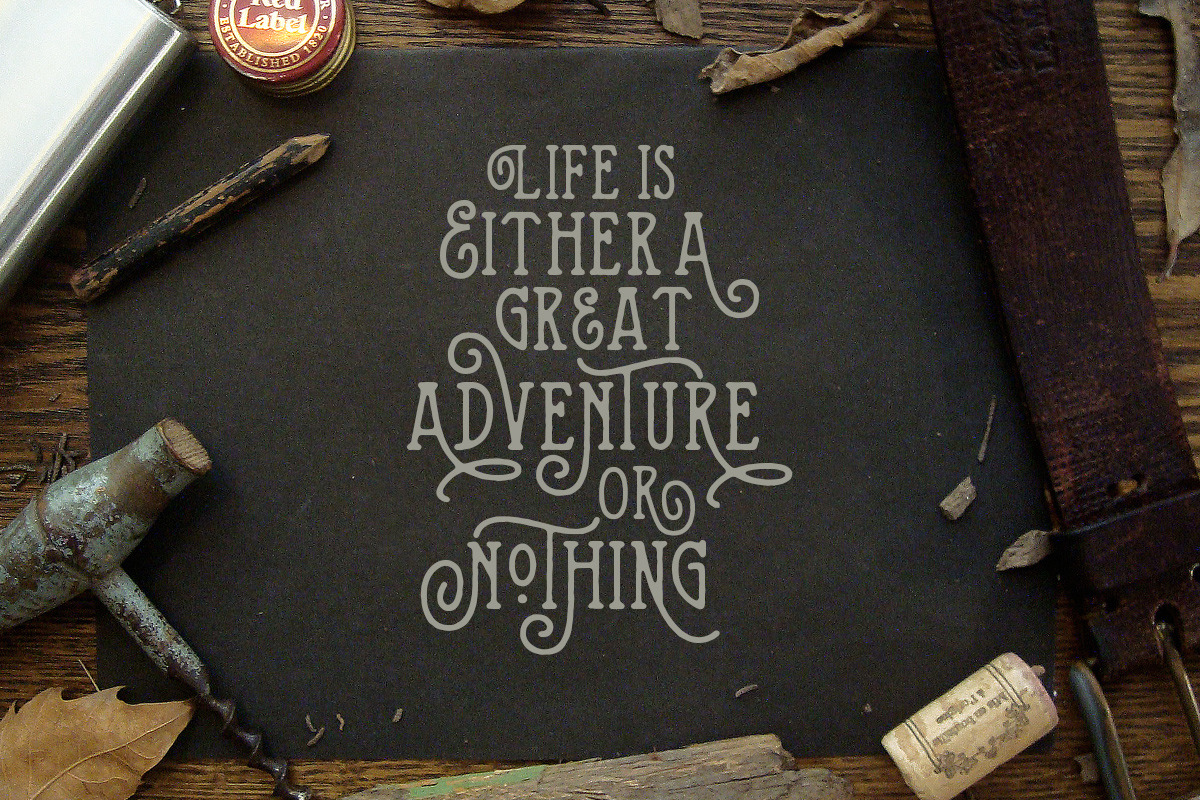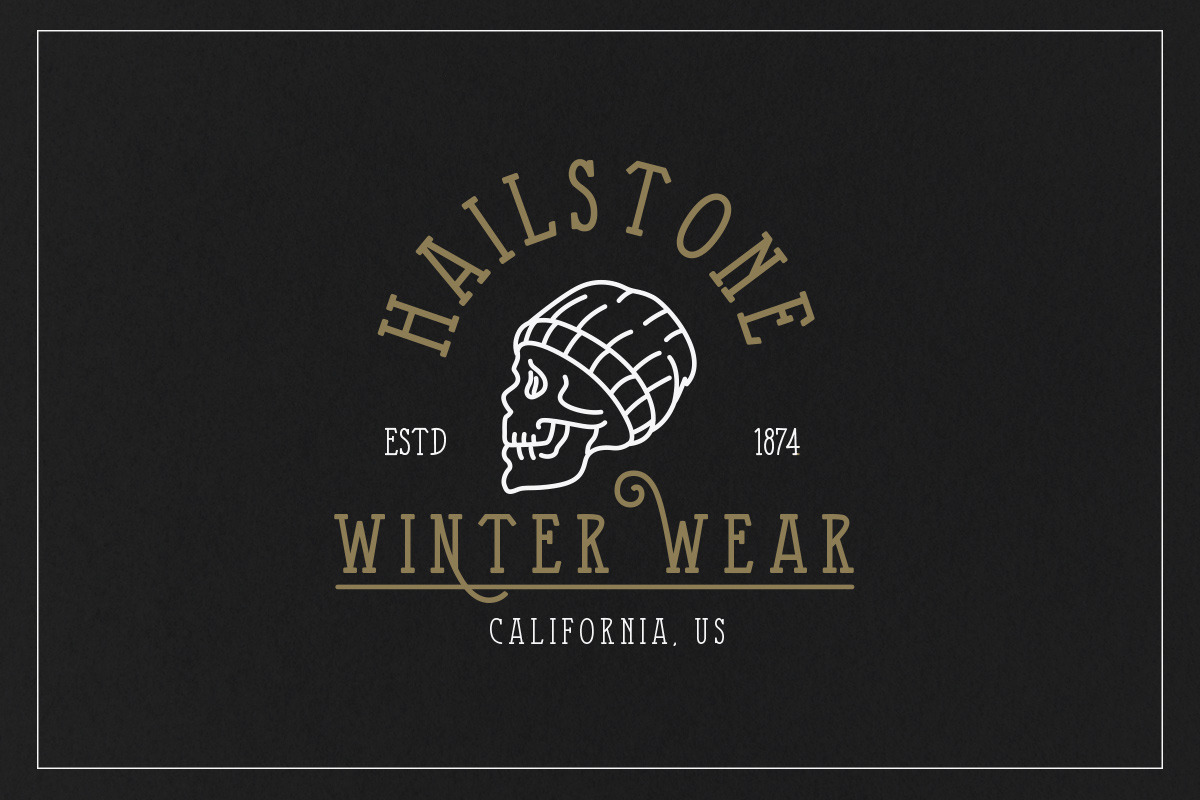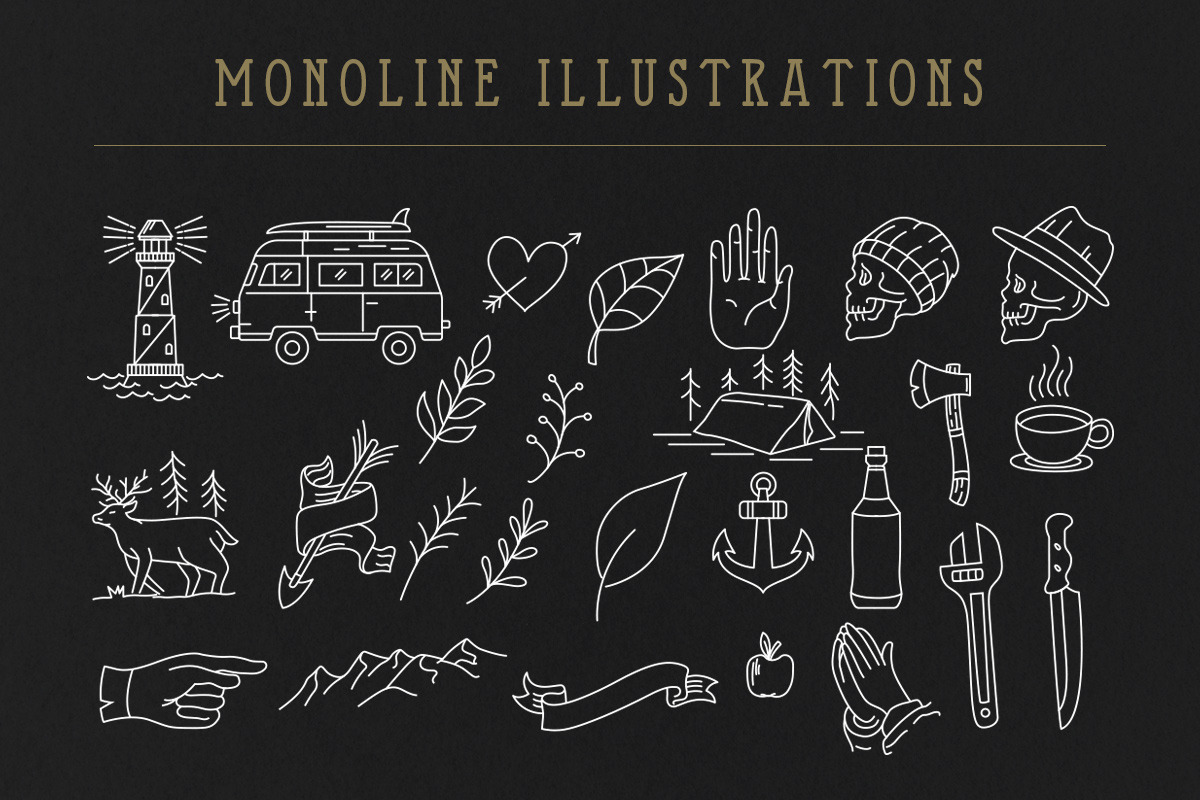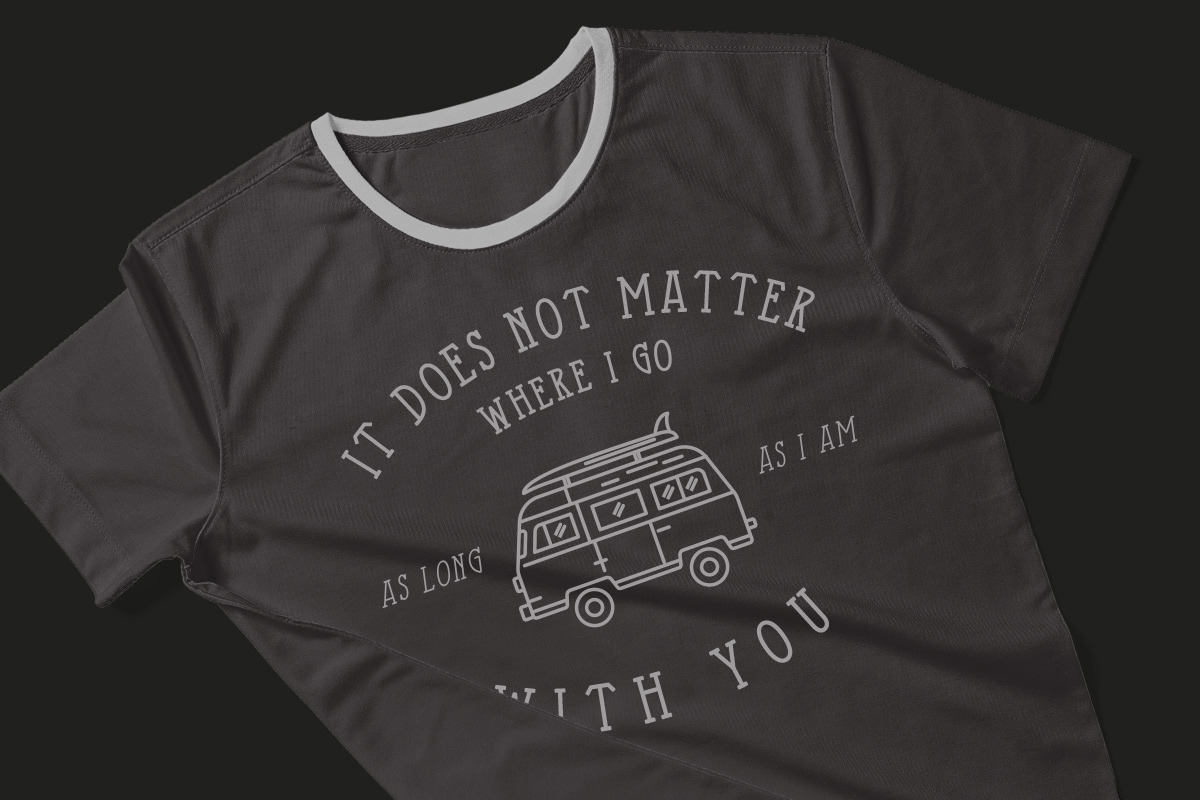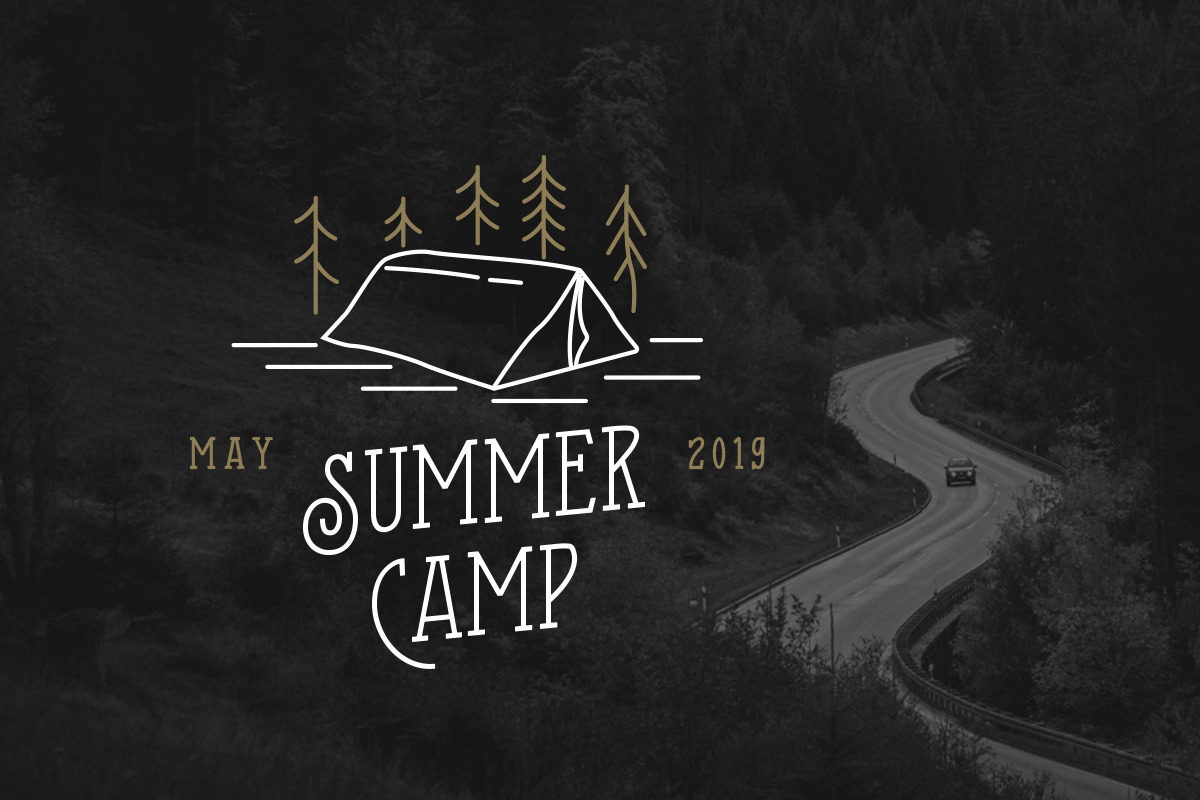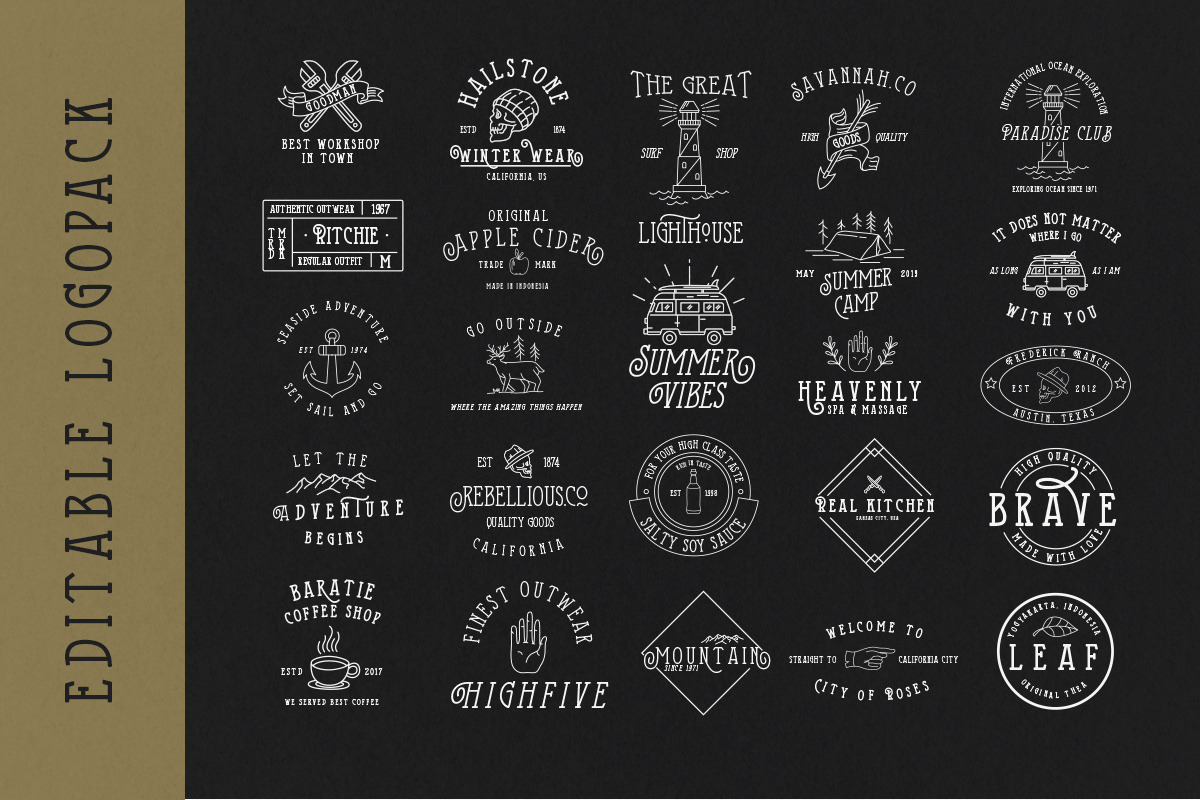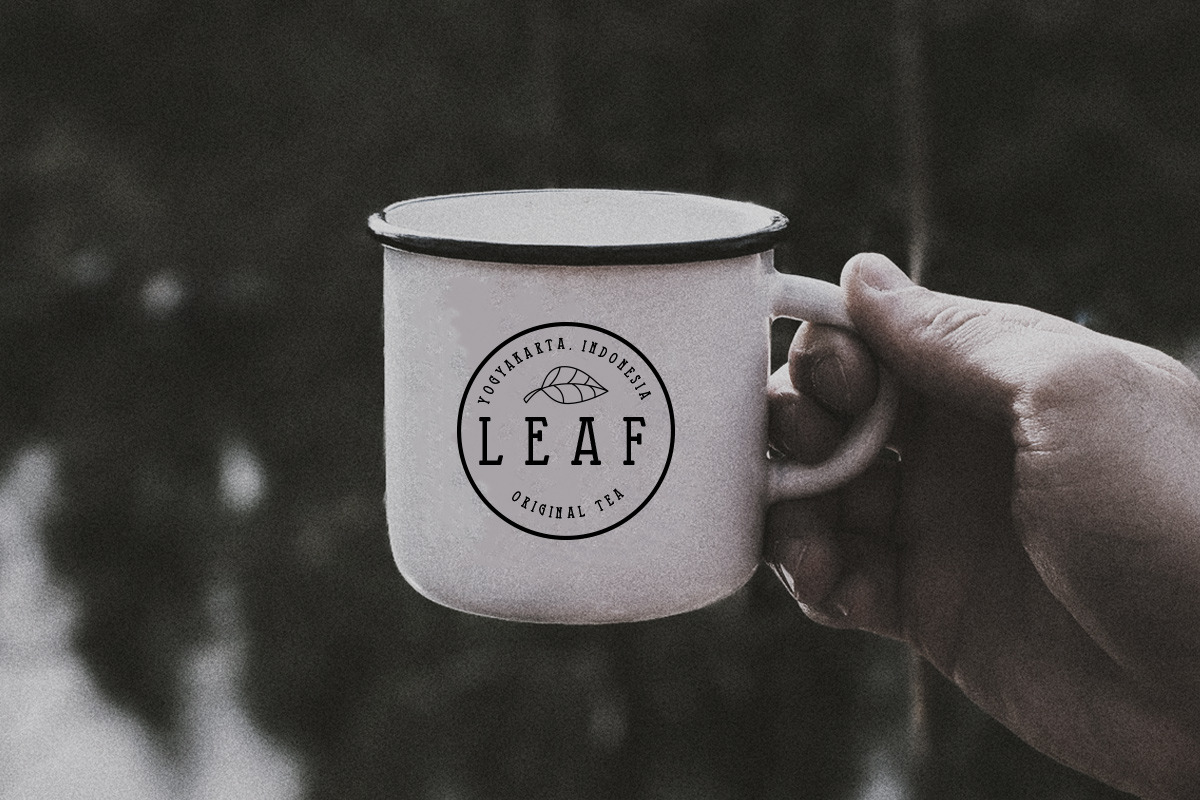
The Holloway Typeface + EXTRAS
Say hi to Holloway Typeface! We're back with one of a kind product that will fulfill your needs for your design project, branding, apparel, etc. Holloway typeface is a unique monoline serif font that have swashes as the main feature. Just play around and see for yourself! This typeface is include a set of logopack and monoline illustrations which is perfectly paired with the typeface. Beside that, this typeface is comes in uppercase, lowercase, punctuations, symbols & numerals, 09 stylistic set alternate, ligatures, etc also support multilingual and already PUA encoded.
Foreign Languages Support: ÀÁÂÃÄÅÇÈÉÊËÌÍÎÏÑÒÓÔÕÖØÙÚÛÜÝßàáâãäåæçèéêëìíîïñòóôõöøùúûü
- Beside that, this typeface is comes in uppercase, lowercase, punctuations, symbols & numerals, 09 stylistic set alternate, ligatures, etc al
The Holloway Typeface + EXTRAS by Letterhend Studio fits naturally into Branding, posters, packaging, typography.